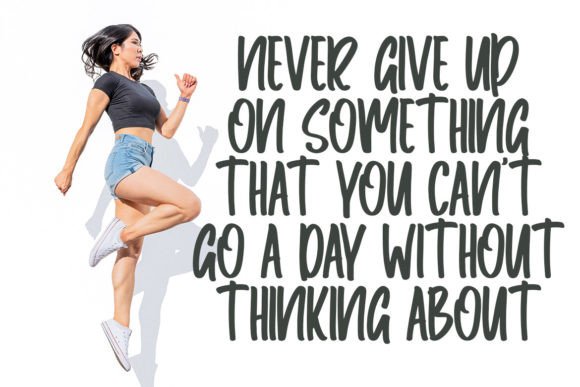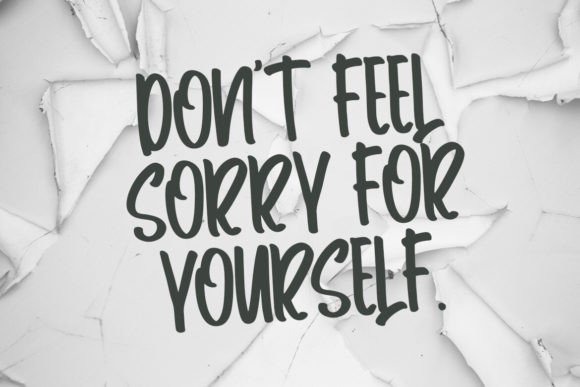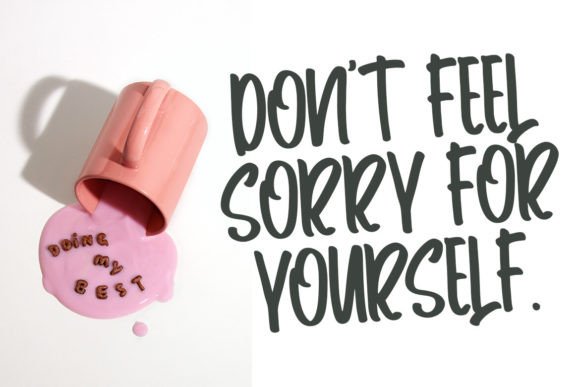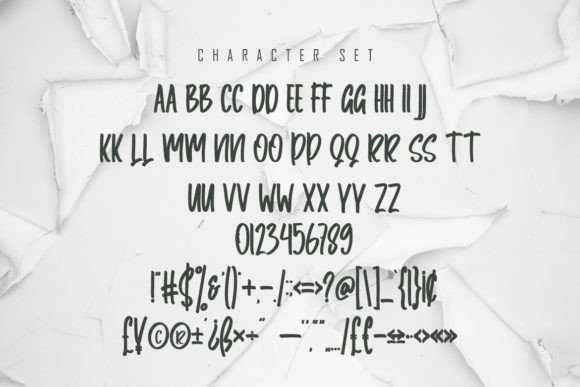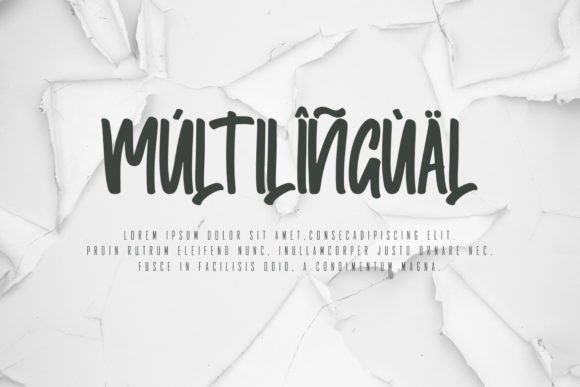
Introduction to Ramens Font
Have you ever stared at a blank canvas, feeling like your creative project is missing that special something? That’s exactly what happened to me when I was working on a branding campaign for a local boutique. I needed a font that would add a touch of elegance and sophistication to my designs, but nothing seemed to fit the bill. That’s when I discovered the Ramens Font – a beautiful, handwritten font that instantly transformed my project.
With its unique, high-quality design, the Ramens Font is a valuable resource for designers looking to add a personal touch to their creative projects. Whether you’re working on a design that requires a transparent background or a custom logo, this font is sure to impress. And the best part? It’s available for free download, making it an accessible design resource for creatives of all levels.
But what really sets the Ramens Font apart is its PUA encoding, which allows for easy access to all of its glyphs and swashes. This means you can unlock the full potential of this font and create truly stunning designs that showcase your unique style.
Key Features of Ramens Font
- High-quality, professional font design suitable for creative projects
- Transparent background for seamless integration with any design
- Designed as a design resource for various creative projects, including graphics, logos, and typography
Honest Review: Ramens Font
As a designer, I’m always on the lookout for high-quality fonts that can elevate my creative projects. Ramens Font is a free download that I recently stumbled upon, and I’m excited to share my honest review with you.
Here are the things that work well for me: ✨ Unique design style, perfect for modern and minimalist designs ✨ Transparent background, making it easy to use in various design scenarios ✨ Great for both digital and print projects, thanks to its crisp and clear typography
However, there are some limitations to consider: ⚠️ Limited character set, which may not be suitable for longer text content ⚠️ May not be the best choice for complex or ornate designs, as it’s more of a clean and simple font
Overall, I’m impressed with Ramens Font as a design resource. Its unique design style and high-quality typography make it a great addition to any creative project. While it may not be perfect for every design scenario, it’s definitely worth considering for modern and minimalist designs.
- High-quality typography
- Unique design style
- Suitable for digital and print projects
Tips for Getting the Most Out of Ramens Font
Experiment with different font sizes, colors, and styles to create visually appealing designs. Use Ramens Font in conjunction with other design resources, such as images and graphics, to add depth and interest to your project.
Use Ramens Font for social media graphics, blog posts, and other online content. It’s also suitable for presentations, reports, and other documents that require a unique and creative touch. With its high-quality and transparent background features, Ramens Font is a great design resource for any creative project.
Montserrat is a popular, free download font that is ideal for designers looking for a versatile and high-quality design resource. Its geometric design and transparent background make it suitable for a wide range of creative projects. When to use: Use Montserrat for headings, titles, and other typography-heavy elements where a strong, modern look is desired. Compared to Ramens Font, Montserrat has a more geometric and urban feel, making it suitable for designs that require a strong, modern aesthetic.